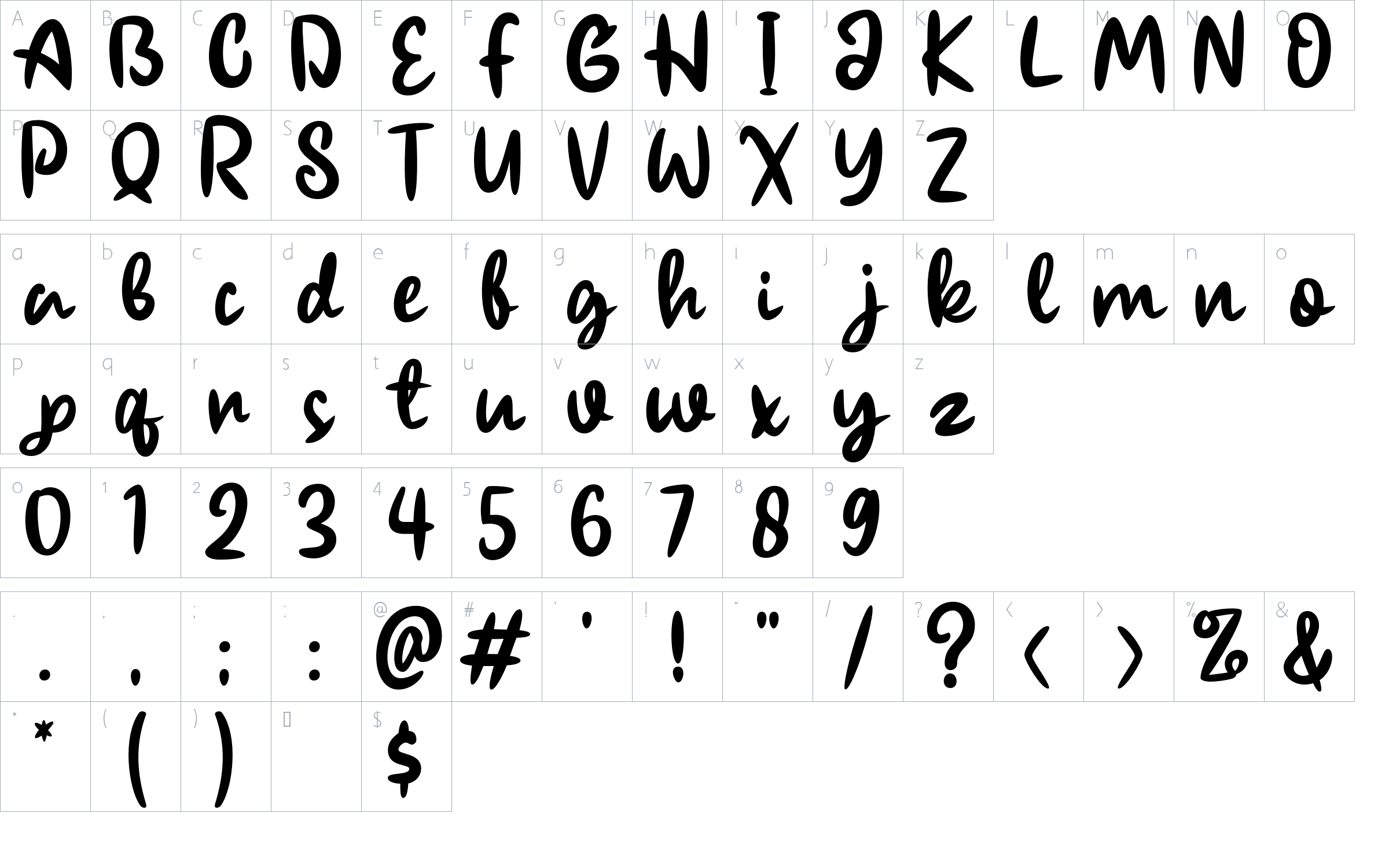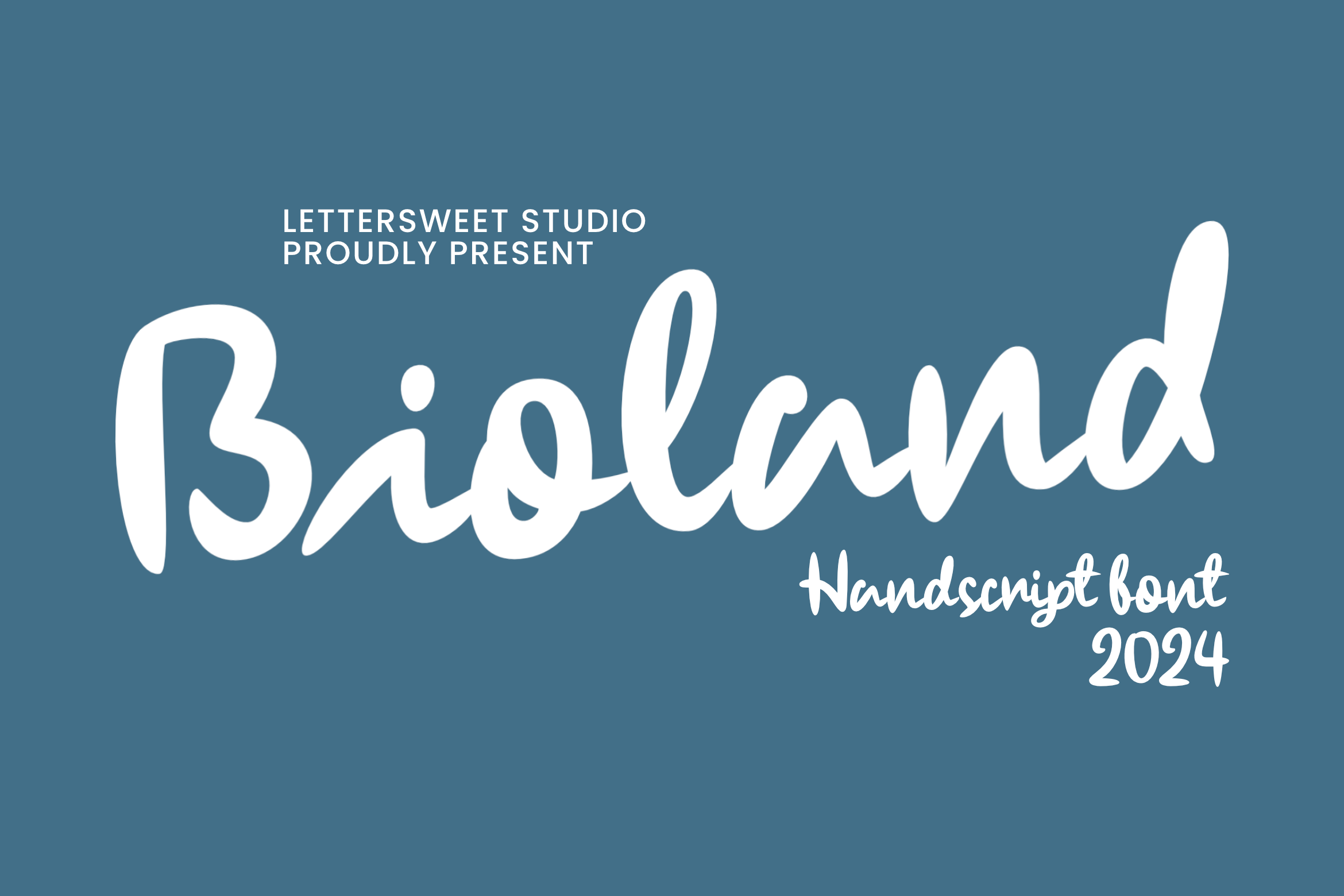
Bioland - Handwritten Script Font
About Bioland - Handwritten Script
Introducing Bioland – a beautiful handwritten script font, created with genuine hand strokes. Its organic nature gives it an undeniable beauty and elegance, making your designs look not just more attractive, but wonderfully authentic too. With its fluidity and grace, Bioland is set to bring a natural touch to your creative pursuits.